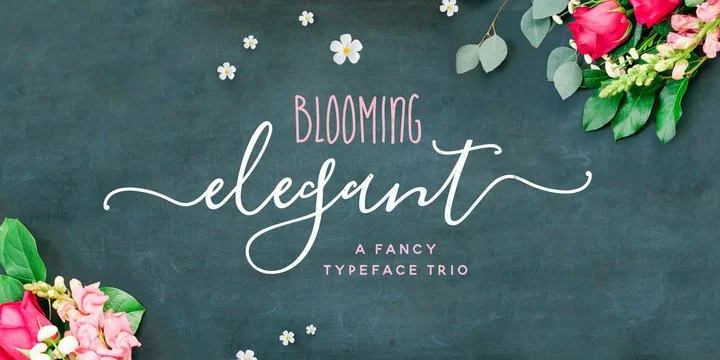
Blooming Elegant Font Trio is perfect for luxury wedding invitations, high-end fashion branding, elegant boutique logos, sophisticated beauty packaging, upscale restaurant menus, feminine lifestyle blogs, refined social media graphics, premium stationery designs, floral business branding, and graceful projects that celebrate natural beauty and timeless sophistication.
This font trio is exciting because it offers three harmoniously coordinated typefaces that work together seamlessly to create layered, dimensional designs with exceptional elegance and visual interest. The thoughtful combination of complementary styles provides designers with incredible versatility while maintaining cohesive sophistication, making it effortless to craft professional compositions that feel both fresh and timelessly beautiful.
The Blooming Elegant Font Trio family typically includes three distinct font styles—such as script, serif, and sans-serif variations—along with uppercase and lowercase characters, numerals, punctuation marks, ligatures, decorative elements, and floral ornaments that enable comprehensive elegant branding solutions.
Whether you're creating luxury brand identities, designing refined wedding materials, or developing premium marketing collateral for upscale businesses, Blooming Elegant Font Trio Free Download provides exceptional typographic coordination and creative flexibility. Its sophisticated character and natural elegance make every project feel more polished and luxurious, ensuring your designs beautifully convey grace, refinement, and blossoming beauty that captivates discerning audiences and elevates your creative work to premium status.